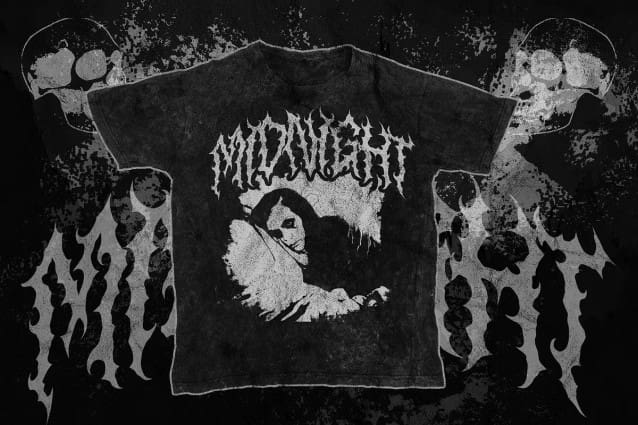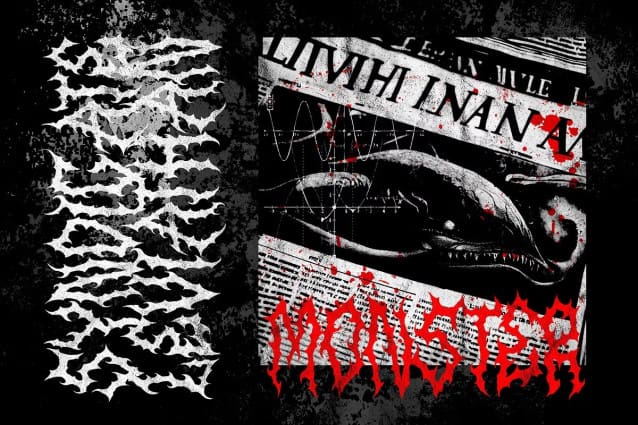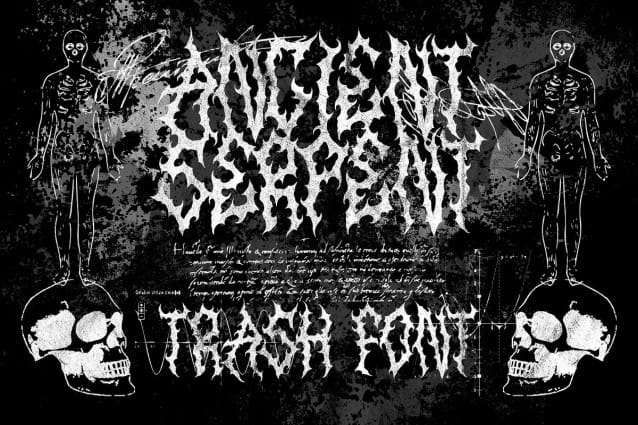
Ancient Serpent Font
Ancient Serpent Font – Death Metal Font, our bold and aggressive font that’s perfect for capturing the raw energy of metal music. With its sharp and edgy design, Ancient Serpent is ideal for creating designs that reflect the intensity and power of metal bands. So if you’re ready to add a touch of darkness and aggression to your designs, download AncientSerpent today and unleash the power and energy of metal music in your designs. Get ready to rock with AncientSerpent!